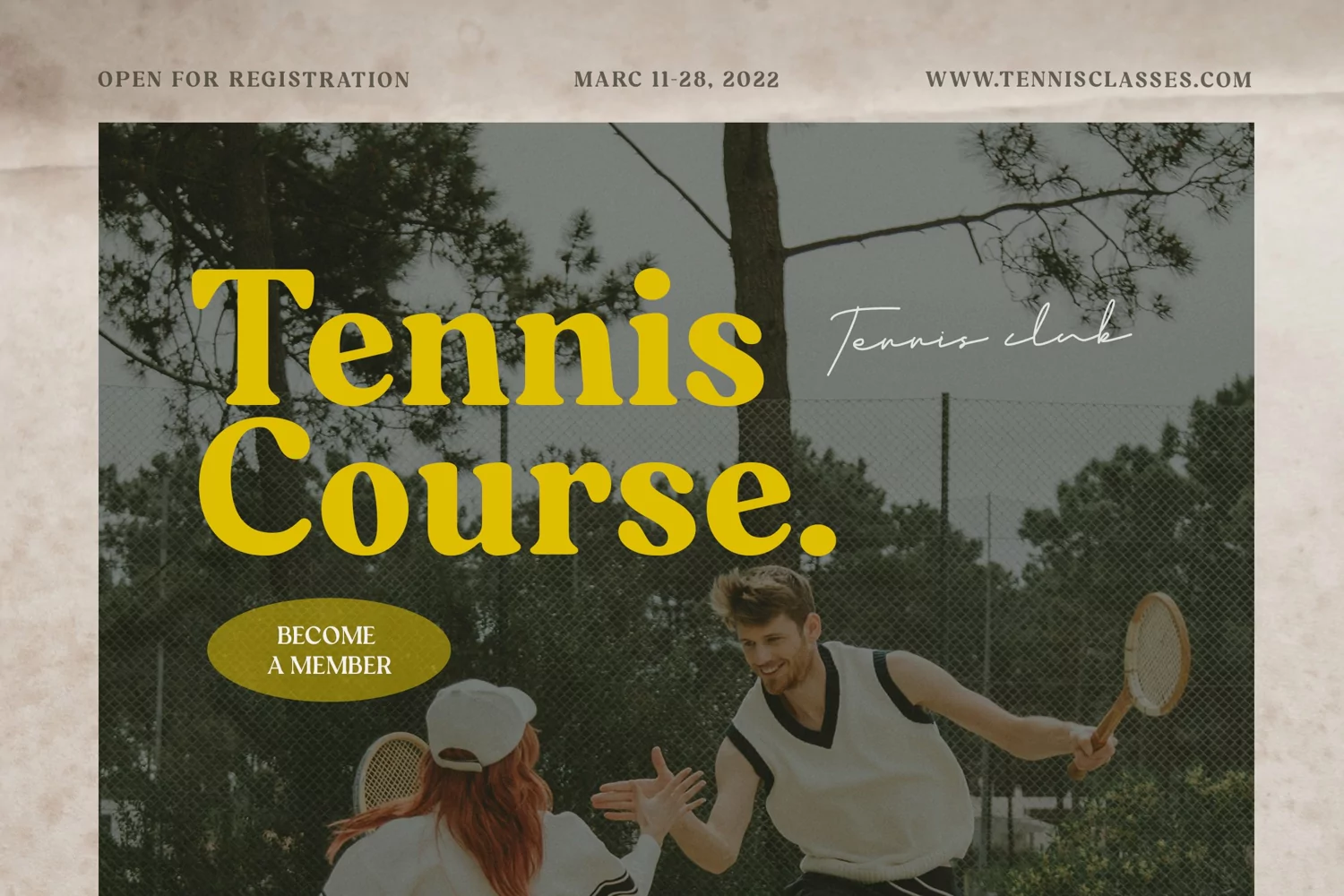
Shegisha - Classic Retro Display Serif - Summer Vintage Bold Font
Shegisha comes with some alternates and ligatures, so you can combine it to make a perfect typography design. Suitable for any design needs : logo, branding, modern advertising design, vintage garage design, music and fashion, animation or movie, logos, retro summer poster quote, book / novel cover Title, editorial design, website / blog, card, and any typography needs.